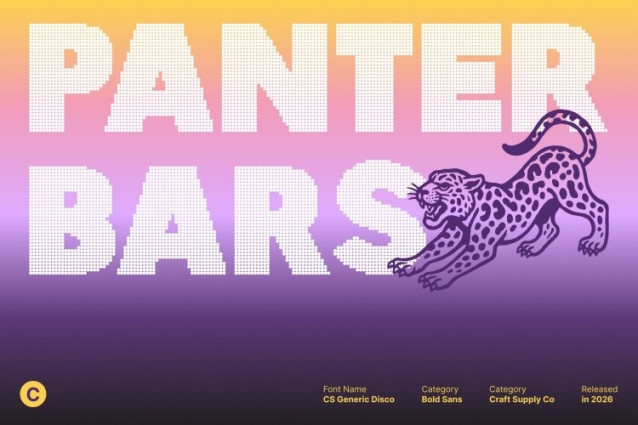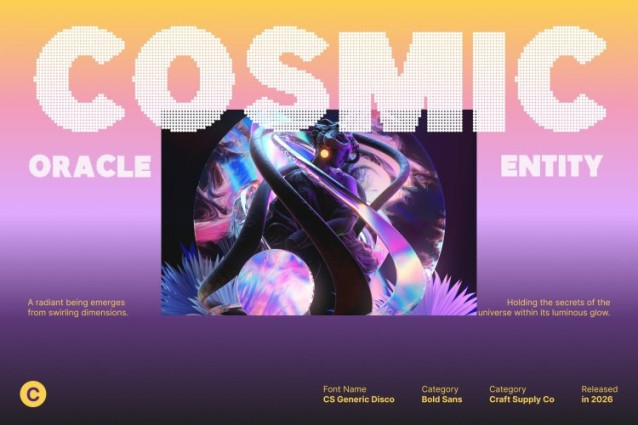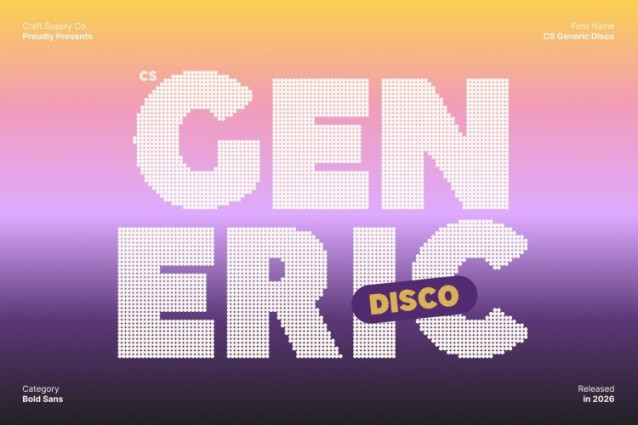
CS Generic Disco Font This is a bold sans serif display font built to dominate the visual stage. Its strong modern structure is enhanced with a disco-inspired attitude confident, expressive, and full of motion. The geometric forms feel solid and striking, while the overall rhythm brings a sense of excitement, like lights flashing across a packed dance floor.
High-Impact Headlines with Electric Presence
Designed to turn heads, this font thrives in headlines, banners, and promotional visuals that demand instant attention. Its heavy weight and powerful proportions ensure outstanding legibility at large sizes, while the disco energy adds drama and flair. Every word feels loud, bold, and impossible to ignore.
Distinctive Branding with Glamorous Confidence
This font delivers a contemporary brand voice with a festive, high-energy twist. Perfect for logos, packaging, and visual identities, it adds confidence and charisma without losing its clean, professional edge. The expressive letterforms bring personality and movement, making brands feel vibrant, modern, and alive.
Versatile for Modern, Festive Design Needs
From print layouts to digital campaigns, social media graphics, and event visuals, this font adapts effortlessly across platforms. Its balance of readability and bold expression makes it ideal for designs that want to feel modern, stylish, and energized perfectly capturing the spirit of nightlife, music, and celebration